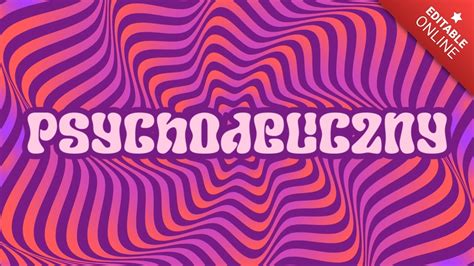
Generate Psychedelic Fonts Instantly
Hey guys! Ever stumbled upon a font that just screamed groovy, retro, and totally outta sight ? You know, the kind that looks like it came straight out of a 1960s concert poster or a vintage album cover? Yeah, we’re talking about psychedelic fonts! And if you’re looking to add that unique, mind-bending flair to your designs, you’re in the right place. Today, we’re diving deep into the vibrant world of the Ipsychedelic font generator and how you can use it to create some seriously cool text.
What’s the Big Deal with Psychedelic Fonts?
Before we get our hands dirty with the generator, let’s chat for a sec about why these fonts are so special. Psychedelic fonts are all about evoking a specific vibe: freedom, creativity, and a touch of the surreal . Think flowing lines, swirling patterns, bold colors, and letters that seem to melt and morph before your eyes. They emerged in the 1960s and 70s, heavily influenced by the counterculture movement, pop art, and a general desire to break free from traditional design norms. Artists and designers used these fonts to capture the feeling of altered states of consciousness, music festivals, and a general sense of wonder and exploration. They’re not just fonts; they’re visual statements . They grab attention, spark curiosity, and instantly transport your audience back in time or into a fantastical new world. Whether you’re designing a poster for a music event, a t-shirt, a website, or even just a social media post, a well-chosen psychedelic font can make your content unforgettable .
Why You Need a Psychedelic Font Generator
Now, let’s talk about the magic tool: the Ipsychedelic font generator . Creating fonts from scratch is, well, hard . It takes serious design skills, specialized software, and a whole lot of time. That’s where font generators come in. They democratize design, making cool typographic effects accessible to everyone, even if you’re not a professional graphic designer. The Ipsychedelic font generator, specifically, is designed to help you create those iconic psychedelic looks without the hassle. You can type in your text, choose from a variety of styles, and poof – you’ve got yourself a unique, eye-catching font ready to download or use. It’s perfect for those moments when you need a specific vibe for a project but don’t have the time or resources to commission custom lettering. Plus, playing around with different settings and styles can be super fun and spark new creative ideas you might not have thought of otherwise. It’s like having a personal font designer at your fingertips, ready to whip up something awesome whenever inspiration strikes. So, whether you’re a student working on a school project, a small business owner promoting an event, or just someone who loves unique typography, a generator like this is a game-changer .
Diving into the Ipsychedelic Font Generator
Alright, enough talk! Let’s get down to business and explore how to use the Ipsychedelic font generator . The beauty of these online tools is their simplicity. Usually, you’ll find a clean interface with a few key components:
1. The Text Input Field
This is where the magic begins, guys. You’ll see a box – usually prominently displayed – where you can type in the words or phrases you want to transform. Whether it’s your name, a catchy slogan, or the title of your masterpiece, just type it right here. Don’t be shy! Experiment with different lengths and combinations of words. Sometimes, shorter, punchier phrases work best for that immediate psychedelic impact, while longer ones can create a more elaborate, flowing design. Think about the message you want to convey. Do you want something bold and in-your-face, or something more subtle and flowing? The text you choose will be the foundation for the entire psychedelic transformation, so pick wisely, but also remember, it’s all about having fun and seeing what looks cool!
2. Style and Customization Options
This is where the Ipsychedelic font generator really shines. Beyond just typing, you’ll usually find a range of options to tweak and customize your text. These might include:
• Font Styles: Psychedelic fonts aren’t monolithic. They can range from bubbly and rounded to sharp and distorted, with varying degrees of curves, loops, and embellishments. The generator might offer several pre-set styles that capture different facets of the psychedelic aesthetic. Play around with each one to see how it affects your text. Some might make your letters stretch, others might add groovy swashes, and some might give it a classic, wavy look.
• Color Palettes: Psychedelic art is synonymous with vibrant, often clashing colors. Look for options to select colors for your text. Some generators allow you to pick individual letter colors, while others let you choose from pre-defined psychedelic palettes that scream 60s. Don’t be afraid to go bold! Think oranges, purples, electric blues, hot pinks, and lime greens. Mixing and matching colors can create a truly mesmerizing effect.
• Effects and Filters: Some advanced generators might even offer effects like gradients, shadows, outlines, or textures. These can add another layer of depth and visual interest to your creation. Want your text to look like it’s glowing? Or perhaps have a distressed, vintage feel? These options can help you achieve that.
• Letter Spacing (Kerning): The spacing between your letters can dramatically impact the overall feel. Some generators allow you to adjust how close or far apart your letters are, which is crucial for achieving that perfectly balanced, flowing psychedelic look. Experiment with tightening or loosening the spacing to see what works best for your chosen words.
Take your time here, guys. This is the fun part! Don’t just click the first option you see. Experiment, play, and explore all the possibilities. The more you fiddle with the settings, the more unique and personalized your psychedelic font will become. Remember, the goal is to create something that feels authentic to the psychedelic era while still being legible and visually appealing for your specific project. You might be surprised at the stunning results you can achieve with just a few clicks.
3. Preview and Download
Once you’ve tweaked your text to perfection, the generator will usually provide a live preview of your creation. This is crucial! You can see exactly how your psychedelic text looks before committing. Take a good, long look. Does it capture the vibe you were going for? Is it readable? Are the colors popping? If you’re happy, you’ll typically find a button to download your font or image . The format will depend on the generator – it might be a PNG image, a JPG, or even a font file (like TTF or OTF) if it’s a more advanced tool. Make sure you understand what you’re downloading and that it’s compatible with the software you plan to use it with. If it’s an image, you can usually copy and paste it directly into your design software. If it’s a font file, you’ll need to install it on your computer first. This step is super important, so don’t skip it! Always preview thoroughly to ensure you’re getting exactly what you want before moving on to the next stage of your project.
The Bottom Line: Get Your Groovy On!
So there you have it, folks! The Ipsychedelic font generator is an incredible tool for anyone looking to infuse their designs with that unmistakable retro, psychedelic vibe. It’s easy to use, offers a ton of creative possibilities, and can help you create truly unique and memorable visuals. Remember to prioritize readability, play with those vibrant colors, choose the right context, and pair your text with complementary design elements. Now go forth, have fun, and let your creativity flow! It’s time to get your design groove on and create something truly far out!